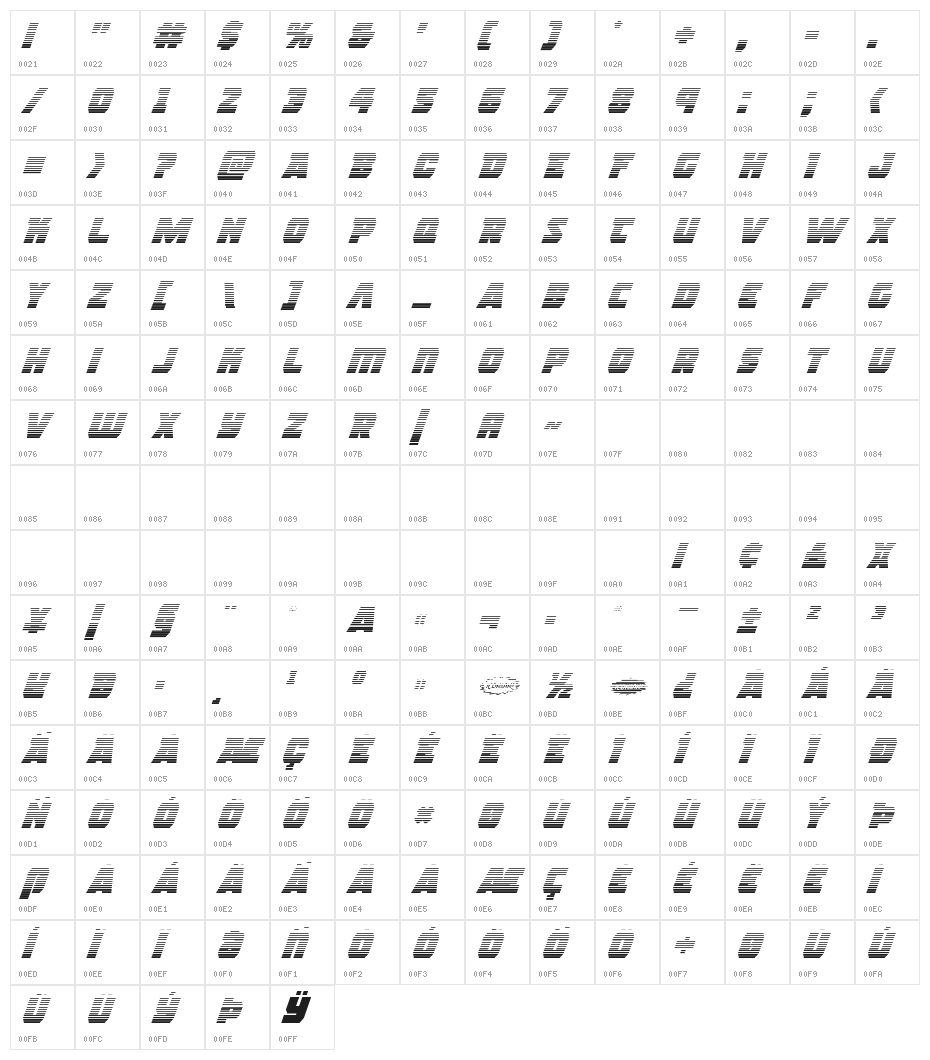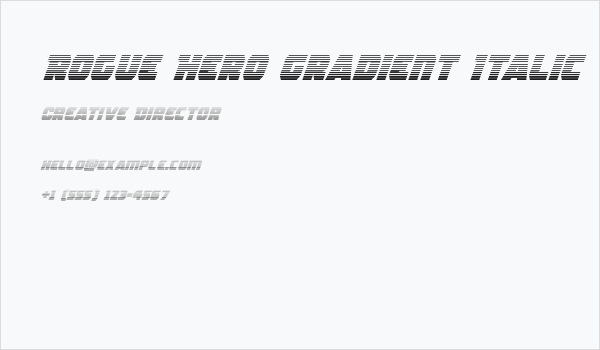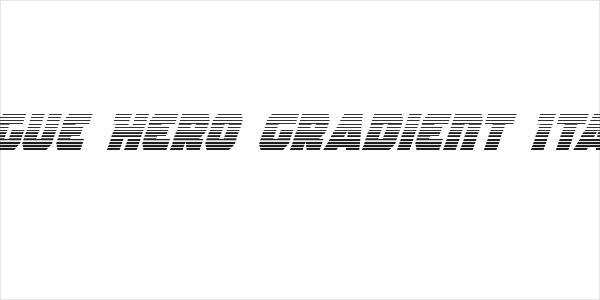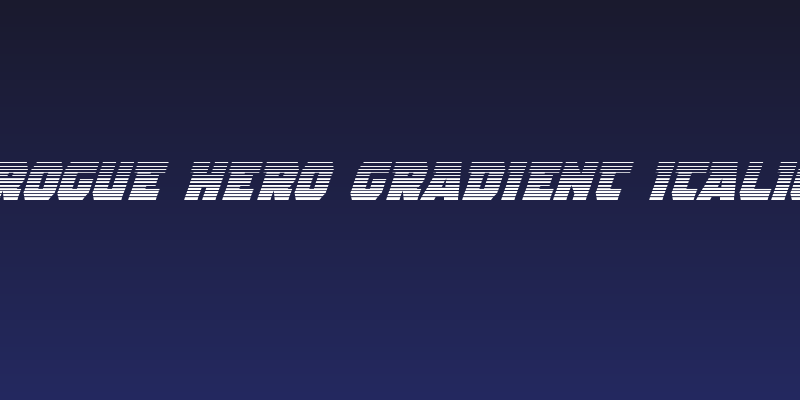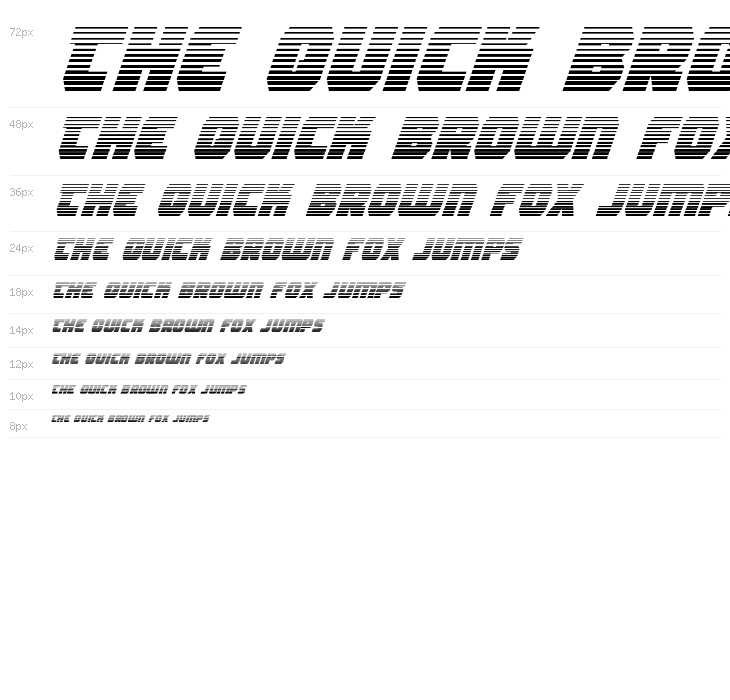
Rogue Hero Gradient Italic Font
Rogue Hero Gradient Italic Description
This font features a bold, italicized style with a distinct gradient effect created by horizontal lines running through each character. The uppercase and lowercase letters, as well as numbers and special characters, are designed with a futuristic and dynamic appearance. The slanted orientation adds a sense of motion and speed, making it ideal for projects that require a modern and edgy look. The characters are wide with tight spacing, enhancing the compact and impactful design. The high contrast between the thick and thin lines within each character further emphasizes the gradient effect.
| Proposed Projects | Ideal for sports branding, video game titles, sci-fi posters, and dynamic logos. |